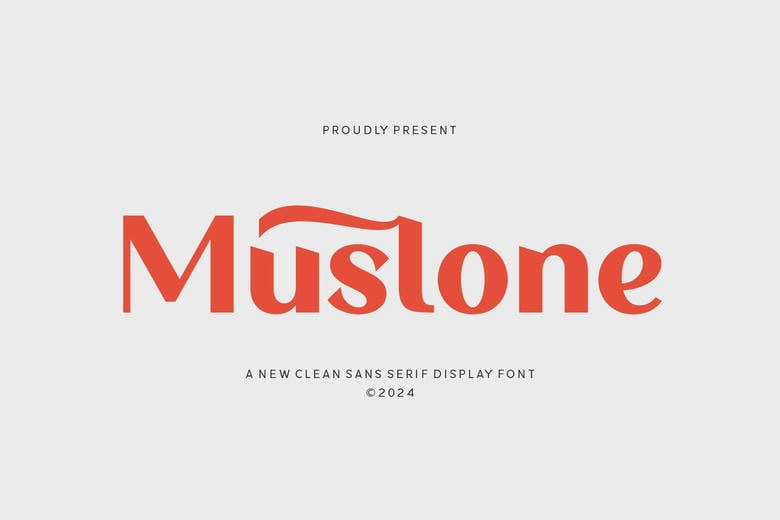
Muslone Font
Muslone is a clean, sans serif font with a modern feel and a touch of style. It has simple, easy-to-read letters with subtle, unique details that make it stand out without being too fancy. Perfect for headlines, logos, or any text where you want a fresh, stylish look.
Muslone Sans Serif Font